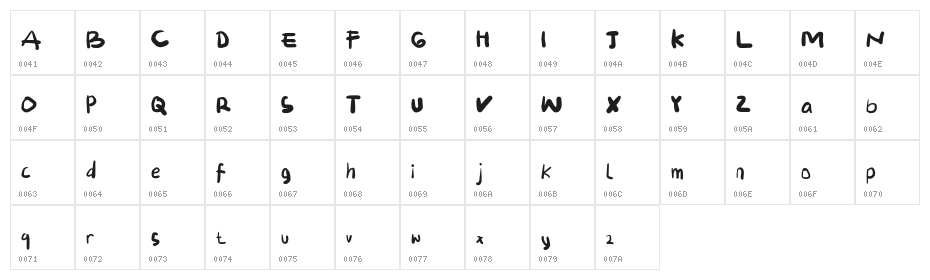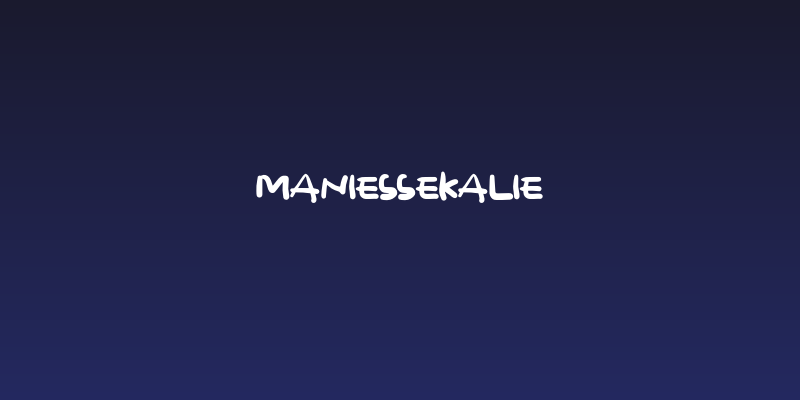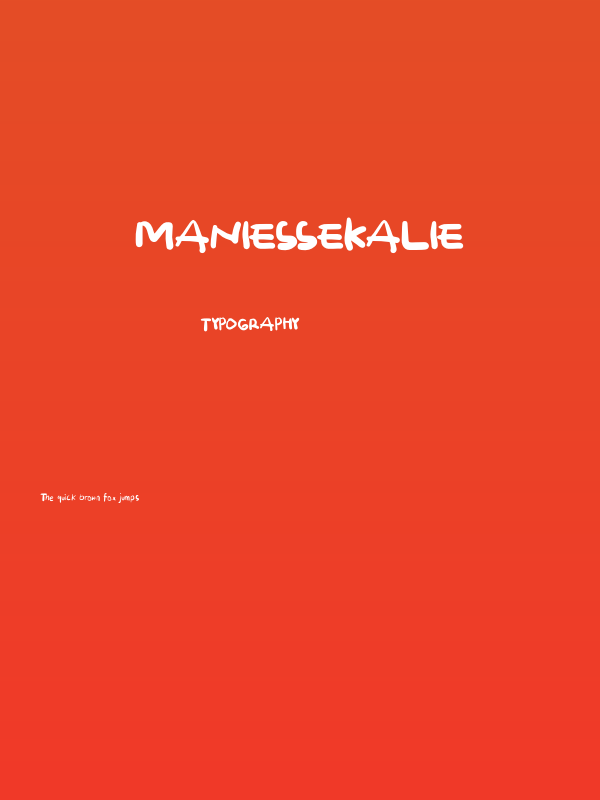
MANIESSEKALIE Font
MANIESSEKALIE Description
This font features a playful and informal style with a handwritten appearance. The letters are bold and slightly irregular, giving it a casual and friendly vibe. The uppercase characters are more pronounced, while the lowercase letters maintain a consistent flow, enhancing readability. The font's rounded edges and varying stroke thickness add a dynamic and lively touch. It lacks special characters, focusing solely on the alphabet, which suggests a straightforward and uncomplicated design. The overall look is approachable and versatile, suitable for projects that require a personal and engaging feel.
| Use Case | Headlines, Informal text, Branding |
| Proposed Projects | Ideal for children's books, greeting cards, casual branding, and social media graphics. |